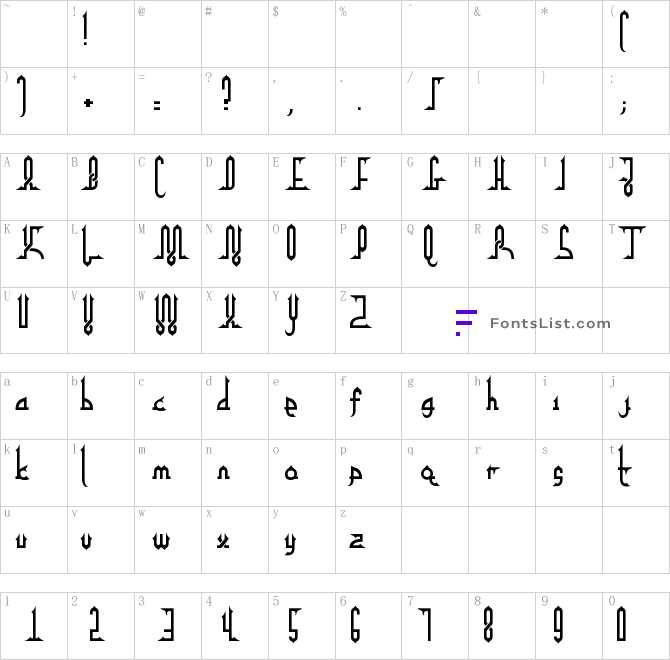
- Font Name:alpha kufi regular
alpha-kufi-regular.ttf is a very beautiful artistic font, alpha-kufi-regular.ttf is widely used in the design and printing of various books and pictures,alpha-kufi-regular.ttf has a strong visual impact,alpha-kufi-regular.ttf is a commonly used font in newspapers, magazines and books, and is used in posters, e-commerce Poster design, store design, logo design, font design and other fields.alpha-kufi-regular.